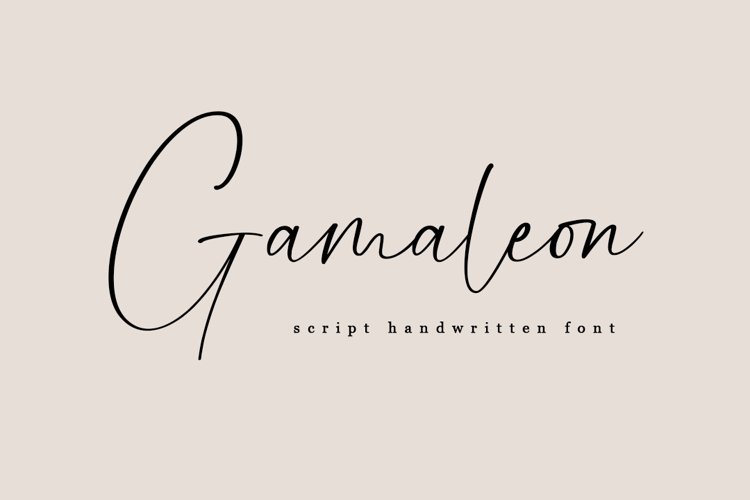
Hi introducing my newest font it's called Gamaleon.
Gamaleon is a stylish and incredibly elegant script font. It looks amazing on wedding invitations, thank you cards, quotes, greeting cards, logos, business cards and every other design which needs a handwritten touch. Featured with Uppercase, Lowercase,Numeral, Punctuation, and ligatures taht will make your design come alive!